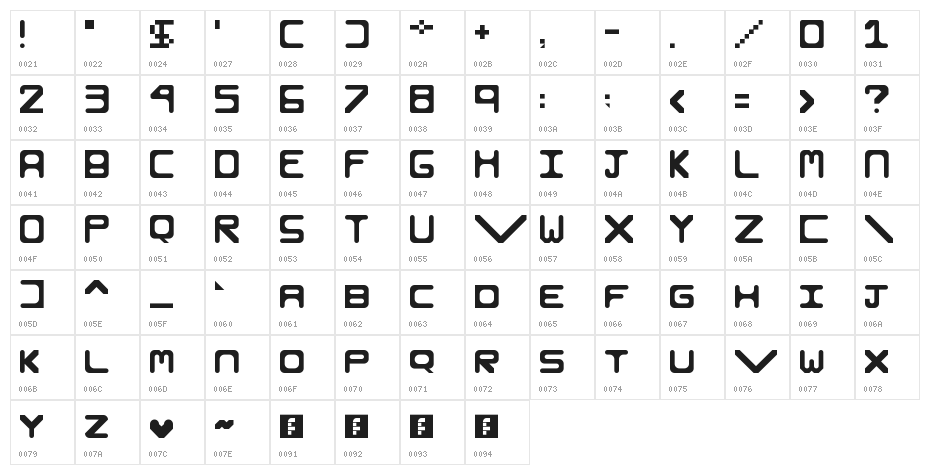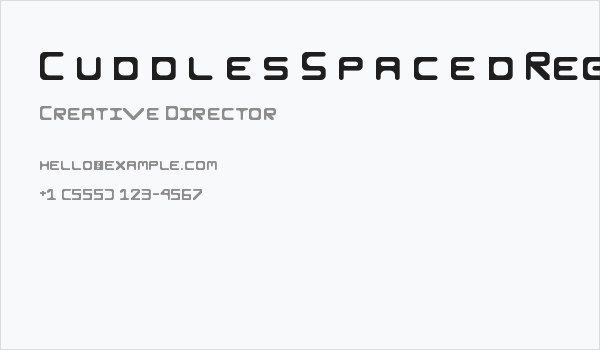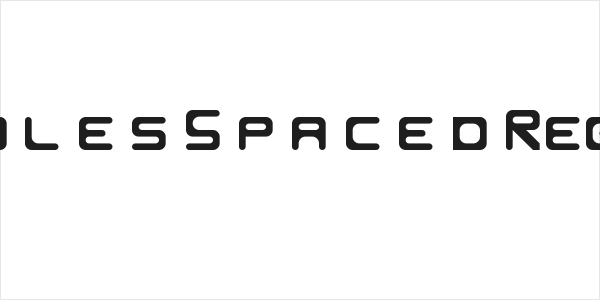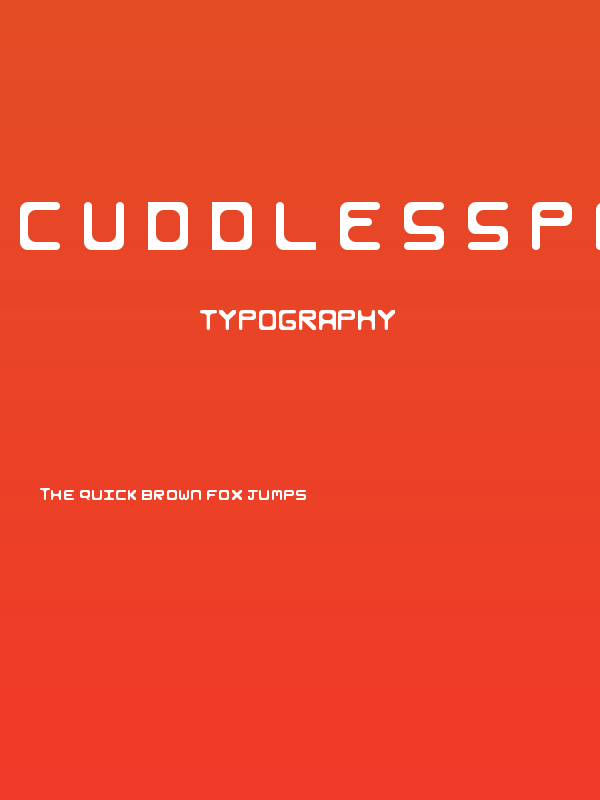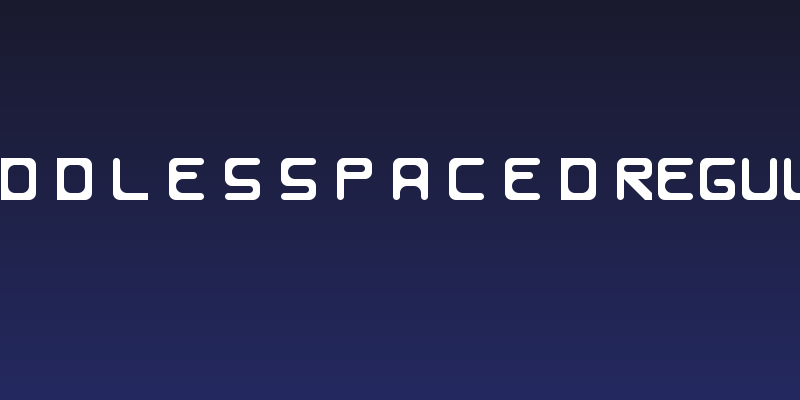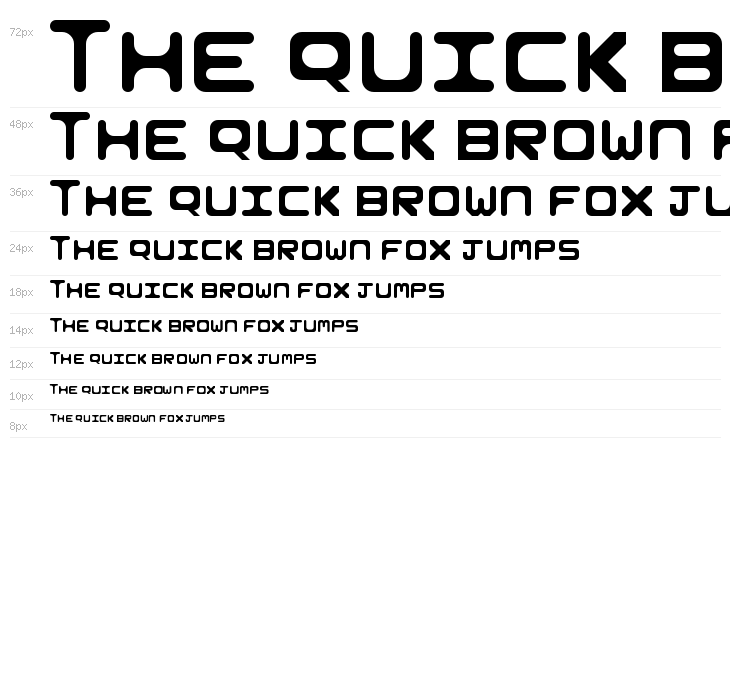
C u d d l e s S p a c e d Regular Font
C u d d l e s S p a c e d Regular Description
This font features a modern, geometric style with rounded edges, giving it a friendly and approachable appearance. The characters are evenly spaced, providing a clean and organized look. The uppercase and lowercase letters maintain a consistent design, with a slight emphasis on curves and smooth lines. The numerals and special characters follow the same design principles, ensuring uniformity across all elements. This font is versatile, suitable for both digital and print media, and can be used to create a contemporary and engaging visual impact.
| Use Case | Headlines, Logos, Digital Interfaces |
| Proposed Projects | Ideal for branding, advertising, digital interfaces, and modern print materials. |